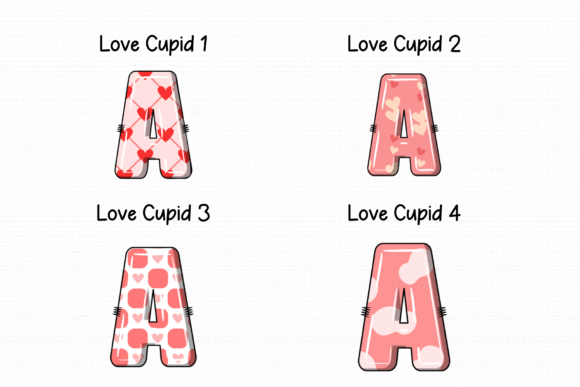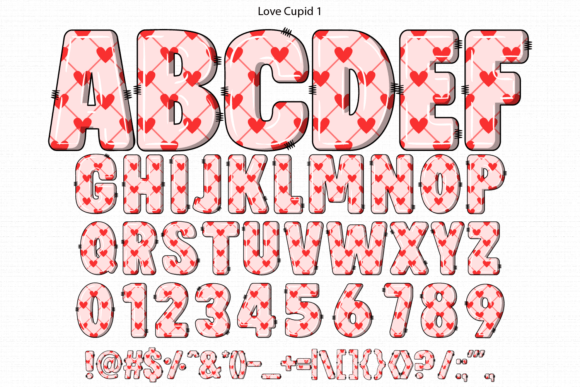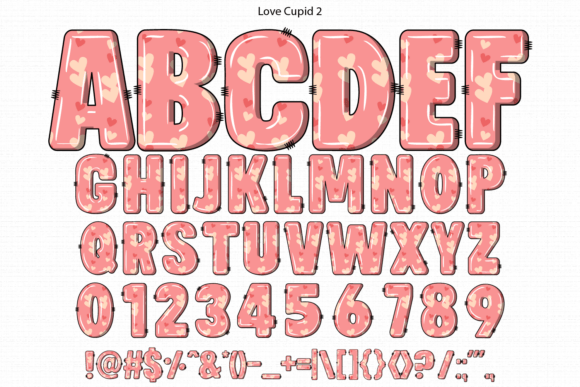
Introduction to Love Cupid Font
Have you ever found yourself browsing through design resources, searching for that perfect font to give your creative project a touch of magic? Maybe it was a late-night brainstorming session, and you stumbled upon the perfect combination of colors and typography that brought your idea to life. For many designers, this is a moment of pure excitement and joy, and it’s exactly what the Love Cupid Font is designed to evoke.
With its vibrant and playful charm, the Love Cupid Font is a must-have for any designer looking to add a personal touch to their work. Whether you’re creating a logo, branding narrative, or advertising campaign, this font is sure to captivate your audience and leave a lasting impression. And the best part? It’s now available for free download, allowing you to unleash its full potential in your designs.
As a high-quality design resource, the Love Cupid Font offers a transparent background, making it perfect for a variety of creative projects. From photo albums to decorations, this font is sure to add a unique and captivating touch to your work. So why settle for ordinary when you can have extraordinary? Download the Love Cupid Font today and experience the magic for yourself.
- High-quality vector graphics: The font features intricate, hand-drawn designs with high-resolution graphics, making it perfect for print and digital applications.
- Perfect for romantic projects: The Love Cupid Font is designed to evoke feelings of love and romance, making it a great choice for Valentine’s Day, wedding invitations, and other romantic-themed projects.
Honest Review: Love Cupid Font
As a designer, I’m always on the lookout for unique and high-quality design resources to elevate my creative projects. The Love Cupid Font is one such find that has left me impressed.
- ✨ The font’s playful and romantic vibe is perfect for projects related to love, relationships, or Valentine’s Day.
- ⚠️ The font may not be suitable for professional or corporate projects due to its lighthearted and whimsical nature.
Overall, I’m impressed with the Love Cupid Font’s quality and versatility. While it may have some limitations, it’s an excellent addition to any designer’s toolkit – especially for creative projects that require a touch of romance and whimsy.
The Love Cupid Font is a unique design resource ideal for creative projects requiring a touch of whimsy. This high-quality font features a transparent background, making it versatile for various applications.
The Love Cupid Font is ideal for various creative projects, including wedding invitations, greeting cards, and social media graphics. It’s also suitable for use in logos, branding materials, and marketing campaigns.